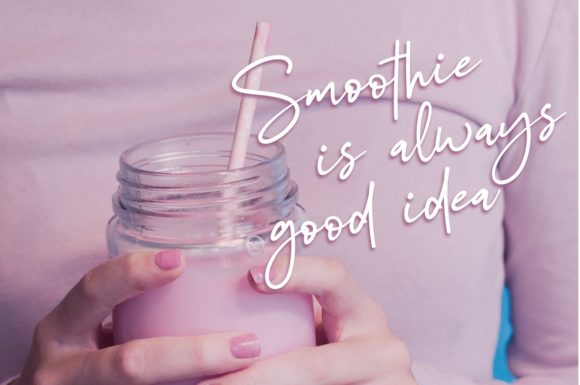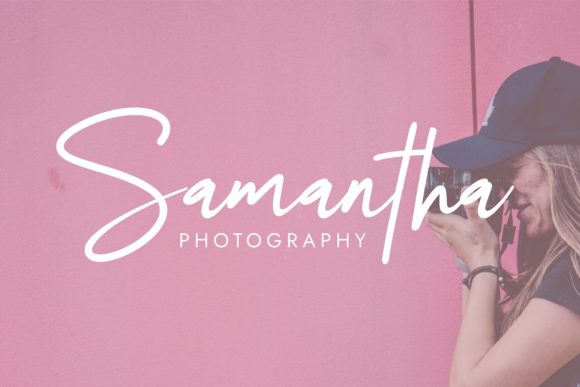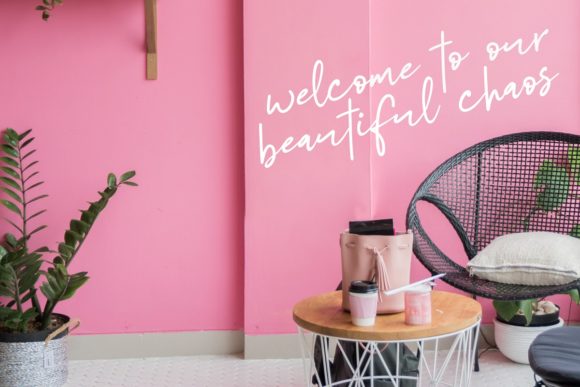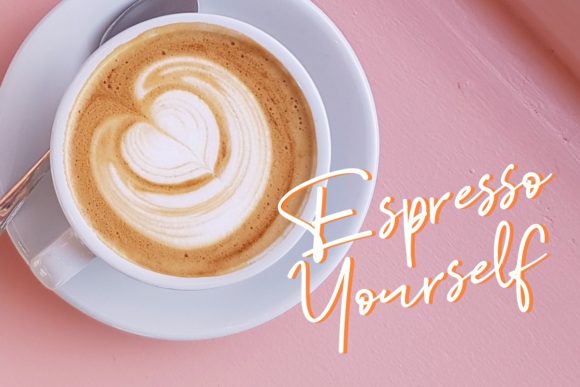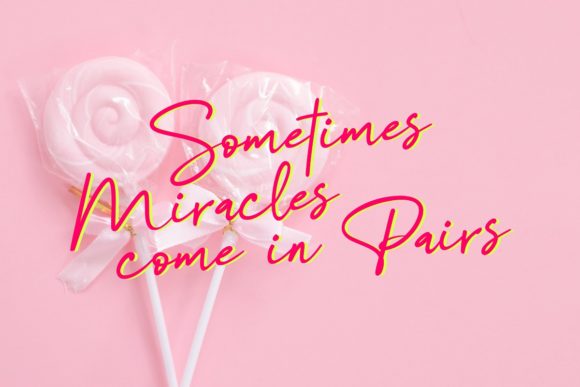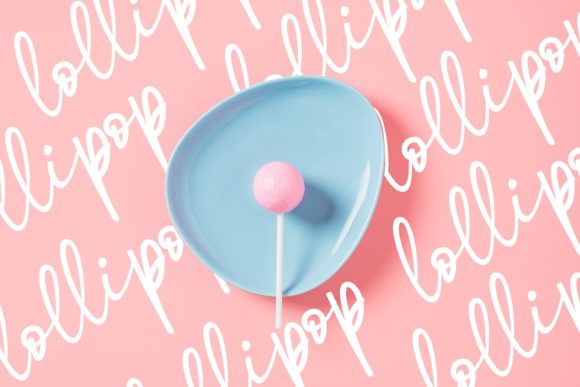
Introduction to Roseliya Font
As you sit at your desk, surrounded by scraps of paper, colorful pens, and a faint hum of creativity, you know that the perfect font can make all the difference in bringing your project to life. That’s exactly what happened to me when I stumbled upon the Roseliya Font. Its unique, handwritten style seemed to whisper “yes” to every design idea I had, and I couldn’t wait to dive in.
With its high-quality design and transparent background, the Roseliya Font is a valuable resource for any creative project. Whether you’re designing invitations, crafting digital art, or simply adding a touch of romance to your next DIY project, this font is sure to be a game-changer. And the best part? It’s available for free download, making it a must-have design resource for any creative enthusiast.
As a designer, you know how hard it can be to find that perfect font to elevate your work. That’s why I’m excited to share the Roseliya Font with you, and I’m confident that it will become a trusted companion in your creative journey.
Key Features of Roseliya Font
- High-quality design resource suitable for various creative projects, including digital art and print materials.
- Transparent background, allowing for seamless integration with any design.
- Designed with precision and attention to detail, ensuring a crisp and clear appearance at high resolutions (up to 300 DPI).
- Available in multiple sizes, from 12 to 72 points, making it versatile for various design applications.
- Perfect for designers and artists looking for a unique and elegant font to enhance their creative projects.
Honest Review: Roseliya Font
As a designer, I’m always on the lookout for high-quality design resources to elevate my creative projects. The Roseliya Font is one such find that caught my attention.
Here’s what I like about it: ✨ The font has a beautiful, elegant design that’s perfect for titles and headings. ✨ The font files are available for free download, which is a big plus for designers working on tight budgets. ✨ The font also supports a transparent background, making it easy to use in various design scenarios.
However, I did encounter a few limitations: ⚠️ The font’s character set is limited, which might not be suitable for projects that require a wide range of characters. ⚠️ The font’s style can be a bit too ornate for some designs, so it’s essential to use it judiciously.
Overall, I think the Roseliya Font is a solid addition to any designer’s toolkit. Its high quality and elegant design make it a great choice for creative projects, and the free download is a bonus. Just be mindful of its limitations, and you’ll be all set to create stunning designs with this font.
- Beautiful, elegant design
- Supports transparent background
- Limited character set
- Can be too ornate for some designs
Tips for Getting the Most Out of Roseliya Font
Use the Roseliya Font in combination with other design elements to create a cohesive look. Experiment with different font sizes and colors to add depth to your design.
Common Use Cases for Roseliya Font
The Roseliya Font is perfect for creative projects such as blog posts, social media graphics, and marketing materials. Its high-quality design makes it an ideal choice for any design resource.